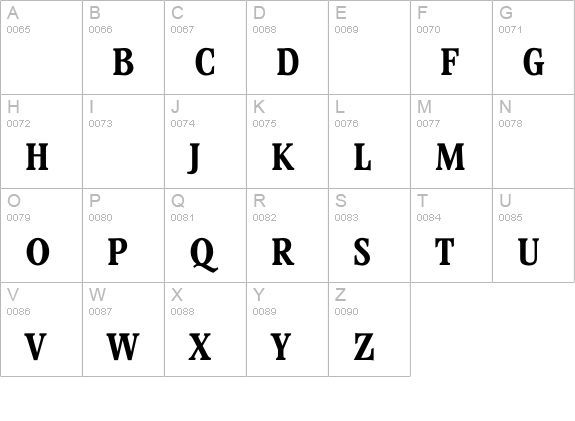
StirlingBold Font Details
Introducing StirlingBold font, a modern and elegant typeface that exudes confidence and sophistication. With its bold and impactful design, this font is perfect for making a statement in your designs. StirlingBold is versatile and can be used for a wide range of projects, from branding to editorial design. The best part? StirlingBold is completely free to download at FontsMarket.com. This means you can add this stunning font to your collection without any cost. Don't miss out on the opportunity to elevate your designs with the timeless appeal of StirlingBold. Download it now and let your creativity shine!